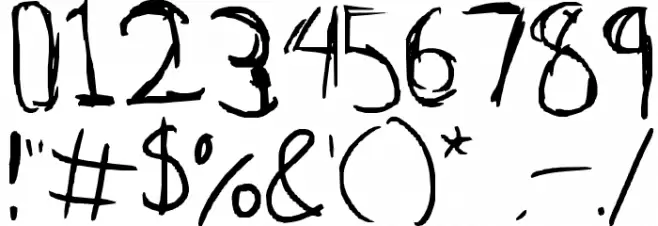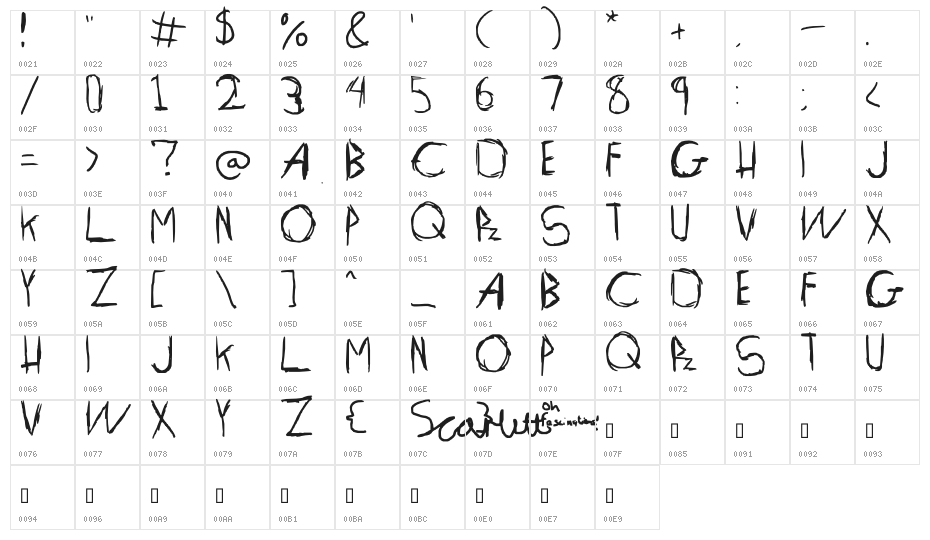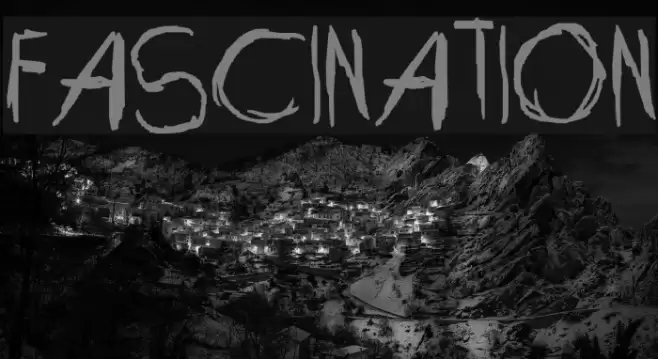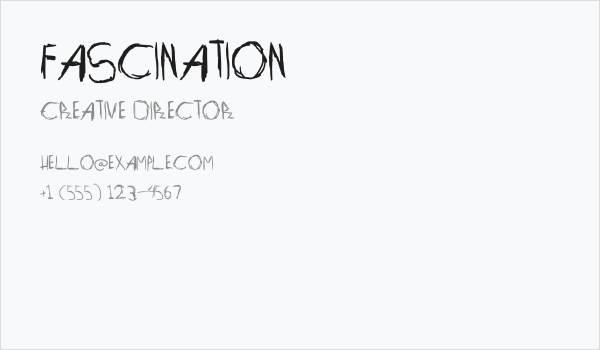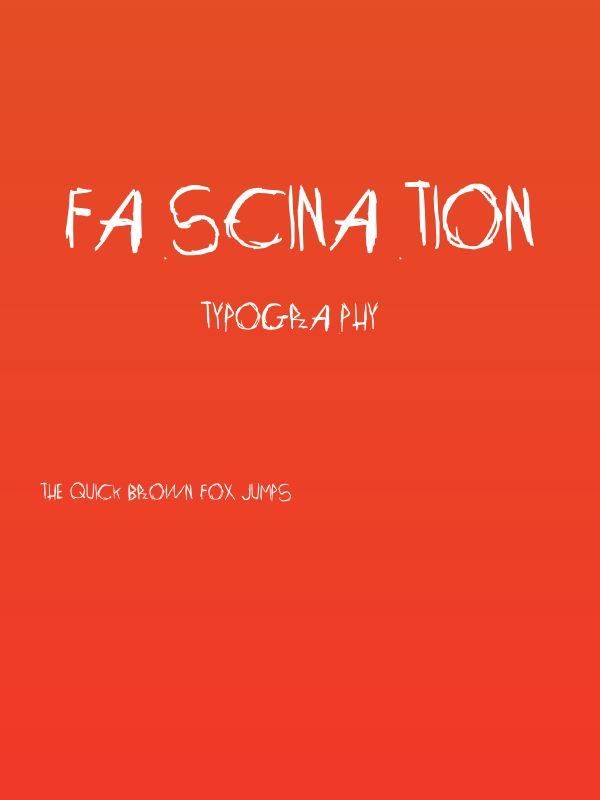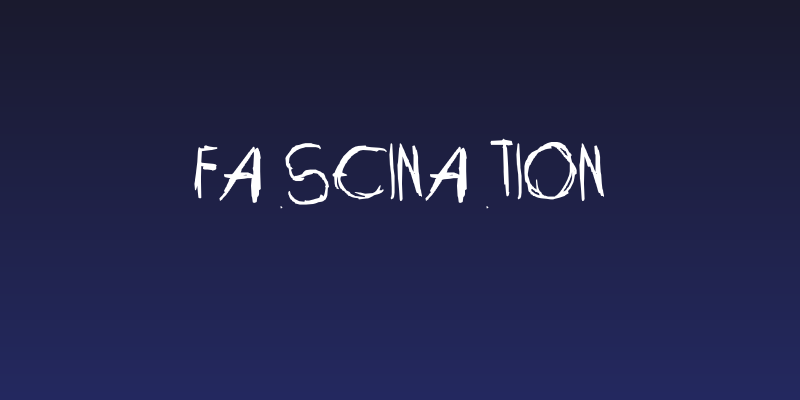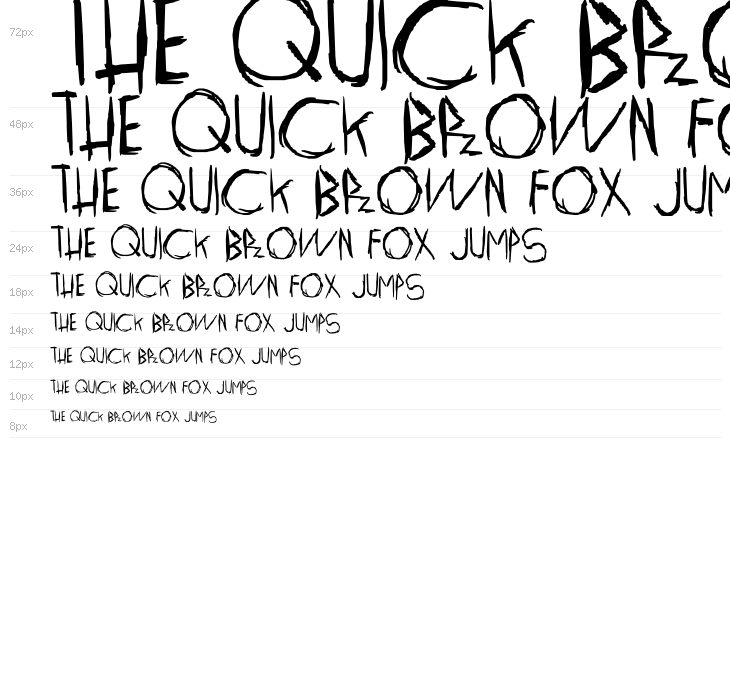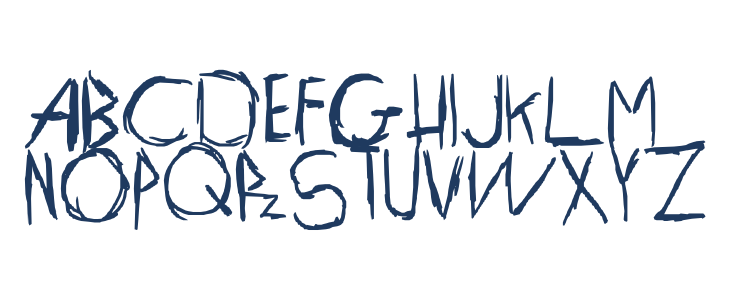
Fascination Font
Fascination Description
This font exhibits a bold and expressive style, characterized by its rough, hand-drawn appearance. The letters have an irregular, sketch-like quality, with varying stroke thicknesses that give it a dynamic and energetic feel. The uppercase and lowercase letters maintain a consistent aesthetic, while the numbers and special characters complement the overall design. The font's unique style makes it stand out, offering a sense of creativity and individuality. It's perfect for projects that require a personal touch or an artistic flair.
Overall StyleArtistic, Expressive
Use CaseHeadlines, Posters, Creative Branding
Proposed ProjectsIdeal for artistic projects, posters, album covers, and creative branding.